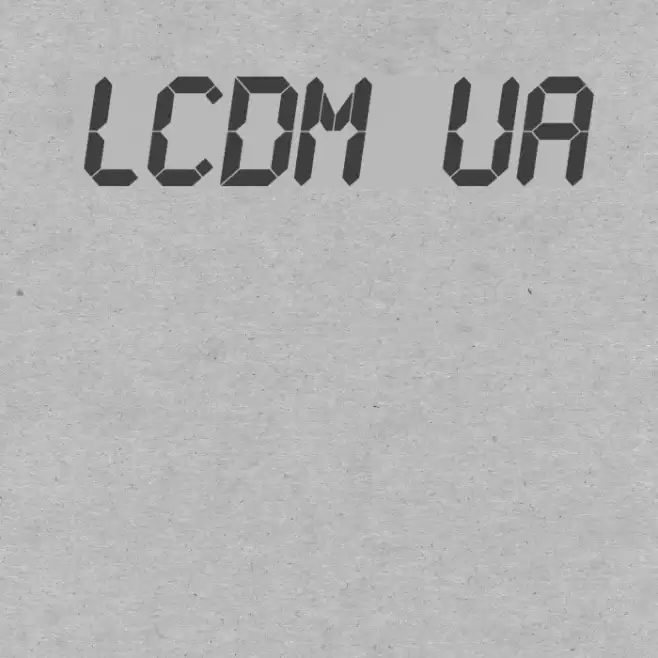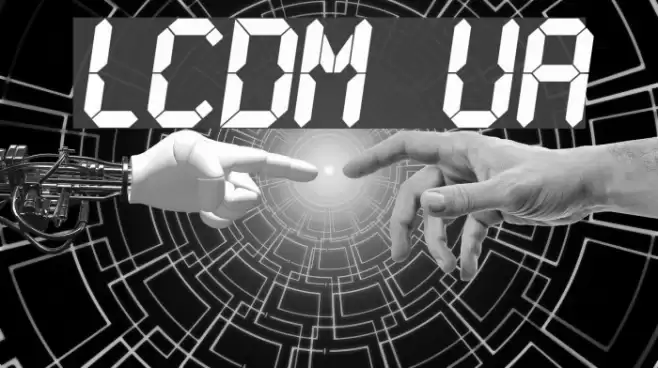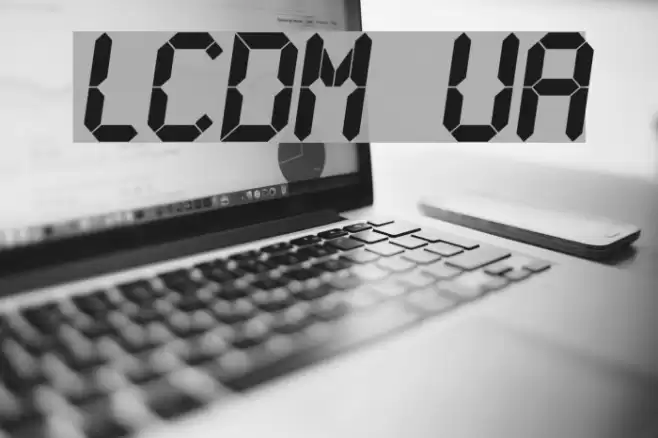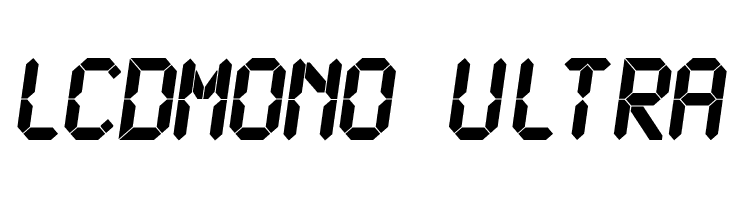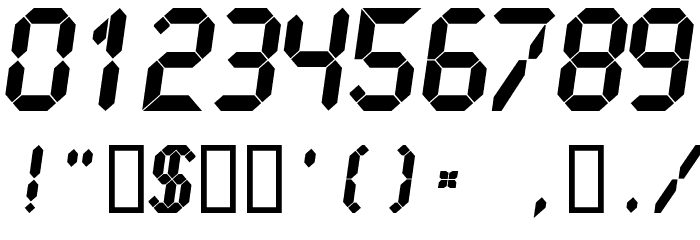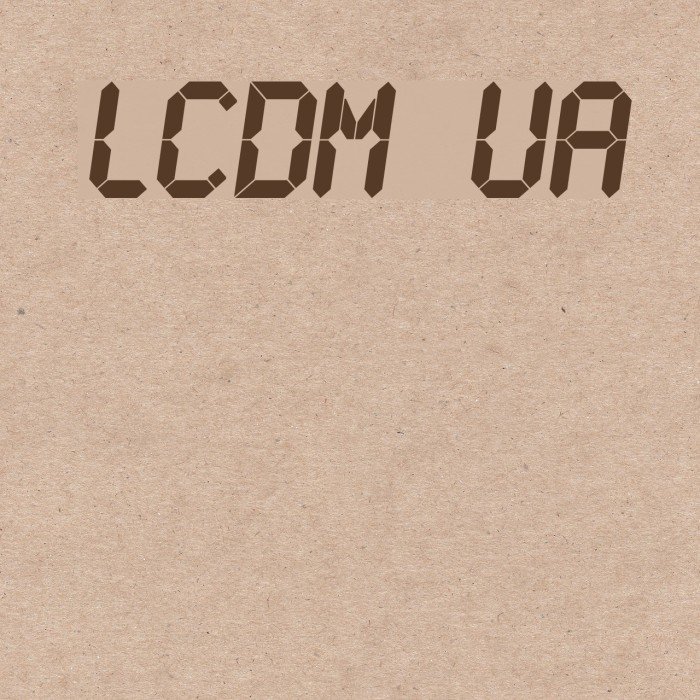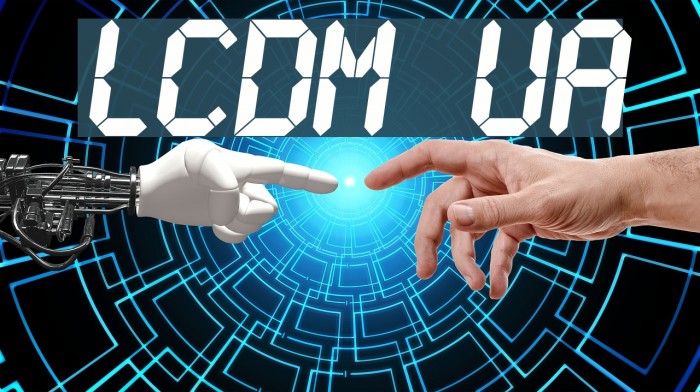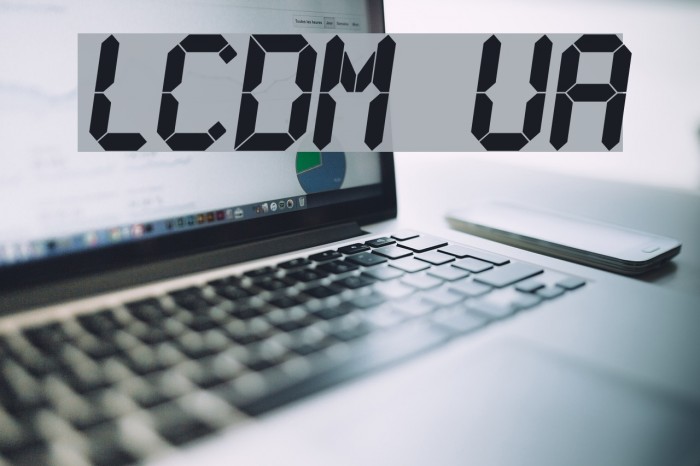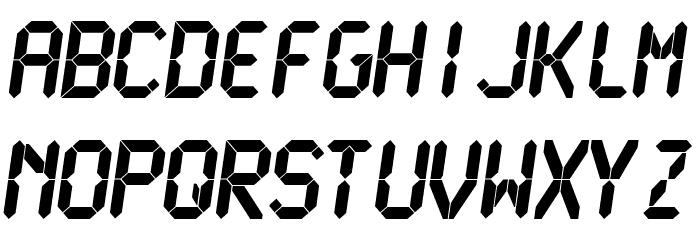
LCDMono Ultra Font
LCDMono Ultra Description
This font features a distinctive digital appearance reminiscent of classic LCD displays. Each character is constructed with angular, segmented lines that mimic the look of digital clocks and calculators. The uppercase and lowercase letters maintain a consistent geometric style, creating a cohesive and uniform appearance. The numbers and special characters follow the same segmented design, ensuring readability and a modern aesthetic. This font is ideal for projects that require a technological or futuristic feel, offering a unique blend of nostalgia and modernity.
A digital, segmented font inspired by classic LCD displays from Uncategorized fonts.
- Proposed Projects: Ideal for digital interfaces, tech-themed designs, retro-futuristic projects, and electronic device displays.
- Use Case: Headlines, Digital displays, Tech interfaces